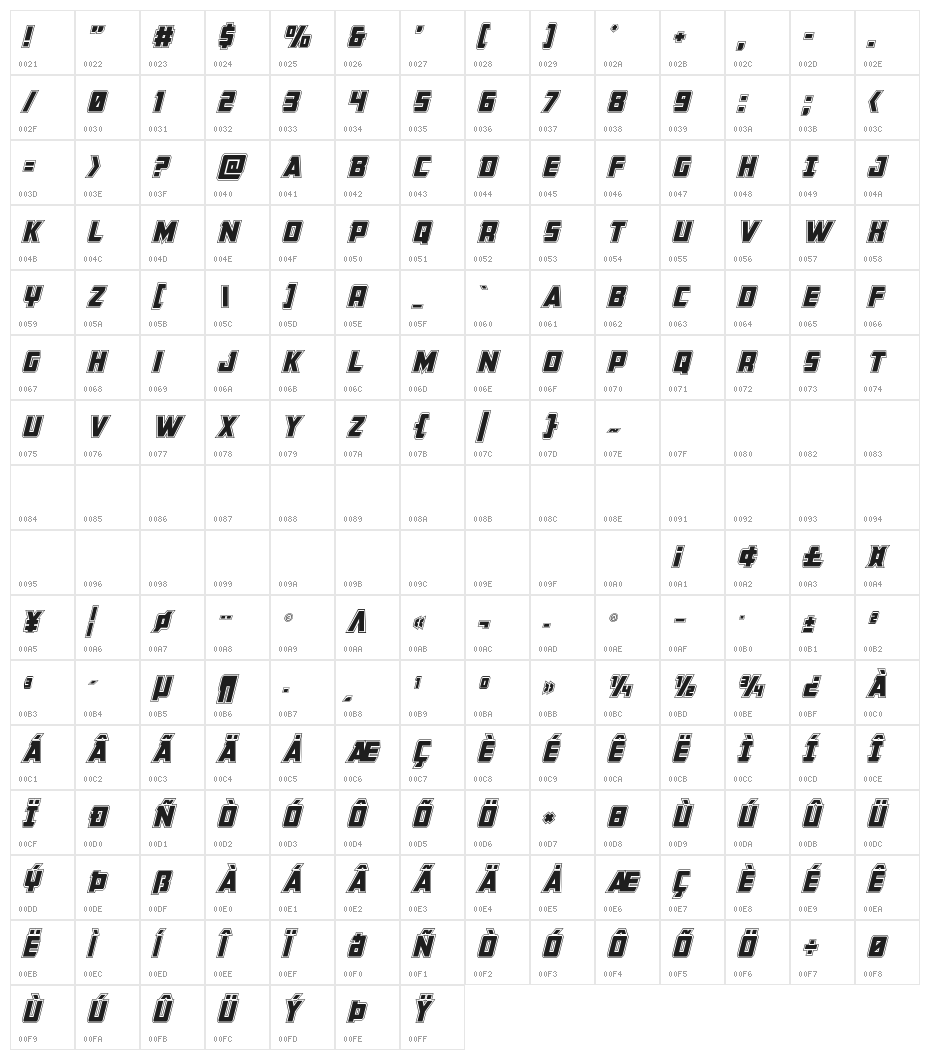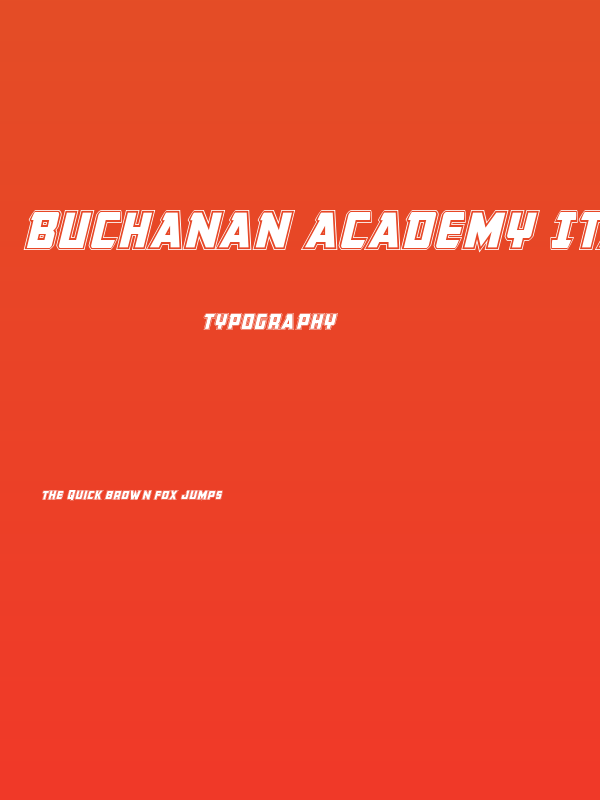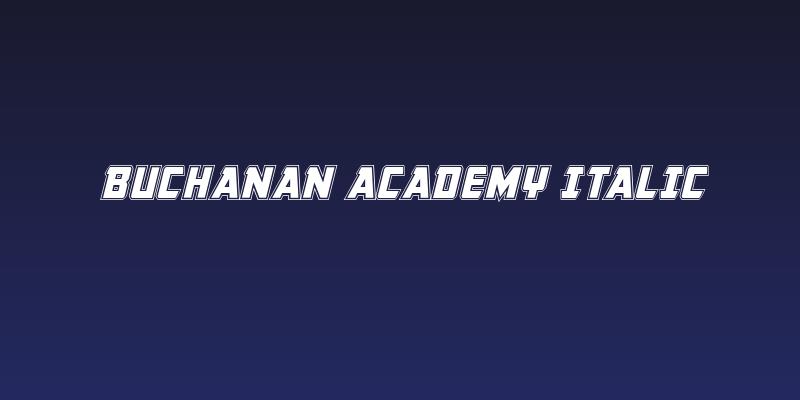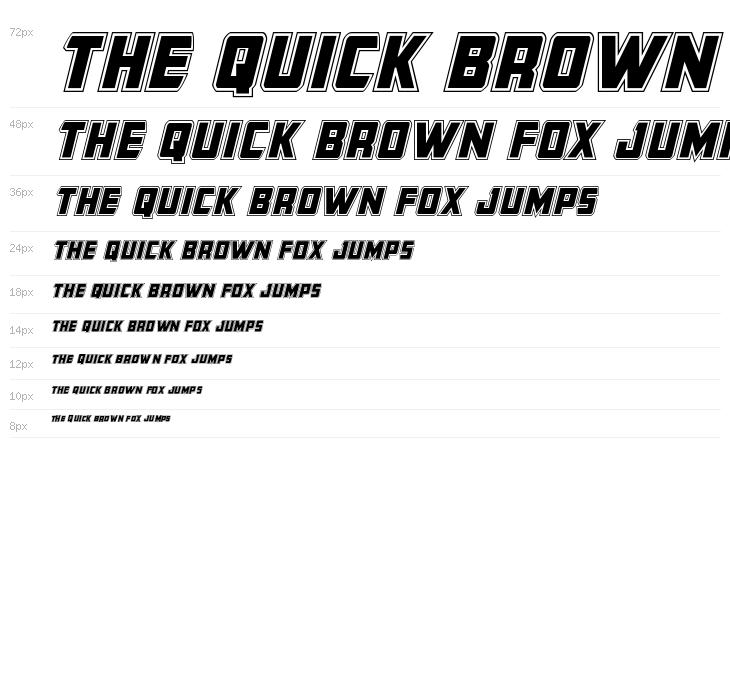
Buchanan Academy Italic Font
Buchanan Academy Italic Description
This font features bold, italicized characters with a strong, dynamic presence. Each letter is outlined, creating a striking contrast between the filled and unfilled spaces. The design is angular and geometric, with sharp edges and a sense of movement, making it ideal for attention-grabbing headlines or logos. The uppercase and lowercase letters maintain a consistent style, while the numbers and special characters complement the overall aesthetic. The font's boldness and italic slant give it a sense of urgency and modernity, suitable for projects that require a bold statement.
| Proposed Projects | Ideal for sports branding, dynamic posters, modern logos, and eye-catching headlines. |